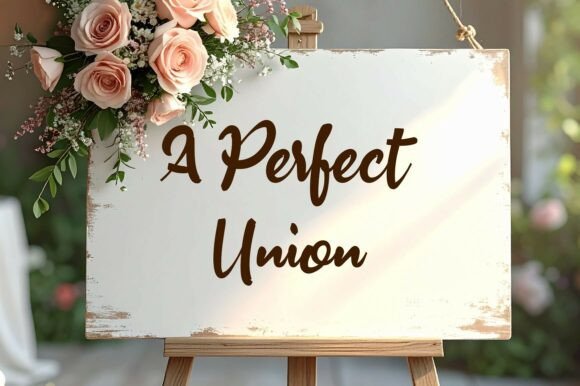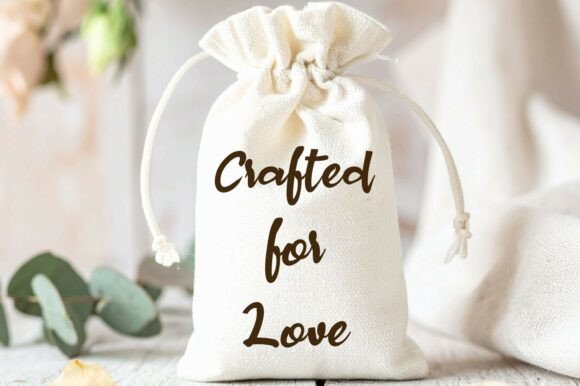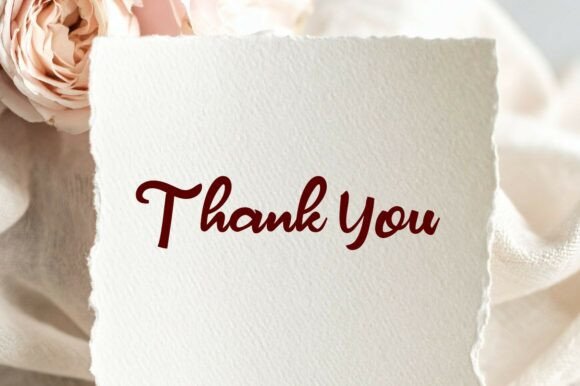
When Words Become Art: Unveiling the Elegance of Amylase Script Font
Have you ever sat with a pen and paper, watching as your handwriting transforms into a beautiful work of art? That’s the magic of Amylase Script Font, a calligraphic script font that brings a touch of elegance and sophistication to any design project. Its fluid, flowing letters seem to dance across the page, evoking a sense of romance and classic charm.
As a designer, you know that the right font can make all the difference in creating a lasting impression. That’s why Amylase Script Font is a valuable addition to any design toolkit. Whether you’re crafting wedding invitations, designing premium product packaging, or creating a logo that exudes luxury, this font is sure to deliver.
- Unique Characteristics: Amylase Script Font features a unique, hand-drawn design with a mix of modern and vintage elements, making it perfect for creative projects that require a touch of elegance and sophistication.
- Script Variations: The font includes multiple script variations, allowing users to add depth and interest to their designs with a range of connecting and non-connecting script styles.
Review of Amylase Script Font
I’ve had the chance to work with Amylase Script Font, and overall, I think it’s a nice addition to any designer’s toolkit. ✨ The font has a unique, hand-written feel that’s perfect for adding a touch of personality to your designs.
Some of the things that work well in Amylase Script Font include:
- ✨ Highly customizable: With over 200 glyphs and a range of OpenType features, you can customize the font to fit your specific design needs.
- ✨ Great for creative projects: The script font is perfect for adding a touch of elegance and sophistication to your designs, making it ideal for creative projects like wedding invitations, menus, and more.
- ✨ Works well in various contexts: From digital to print, Amylase Script Font is versatile and can be used in a range of contexts, from branding to editorial design.
However, there are some limitations to keep in mind:
- ⚠️ May be difficult to read in small sizes: The font is quite ornate, which can make it difficult to read in small sizes or at a distance.
- ⚠️ Limited language support: While the font includes a range of languages, it may not be comprehensive enough for all your design needs.
Overall, I think Amylase Script Font is a great addition to any designer’s toolkit. With its unique feel and high level of customization, it’s perfect for adding a touch of personality to your designs. However, be aware of the limitations, and use it accordingly.
Tip: Use the Amylase Script Font for headings or titles to add a touch of elegance to your designs.
Tip: Use the Amylase Script Font for handwritten-style text to create a unique and eye-catching design.
Tip: Use the Amylase Script Font for titles or headings to add a touch of sophistication to your presentations or documents.
The Amylase Script Font is perfect for:
- Handwritten-style text for social media and blog posts
Remember to use the Amylase Script Font in moderation to avoid overwhelming your design.
Carolyna Pro is a modern calligraphy script font that features elegant, fluid lines and a mix of uppercase and lowercase letters. It is ideal for use in wedding invitations, event branding, and other special occasions where a touch of sophistication is needed.
Compared to Amylase Script Font, Carolyna Pro has a more refined and polished look, making it suitable for high-end projects. While Amylase Script Font has a more vintage feel, Carolyna Pro has a modern twist that makes it more versatile.